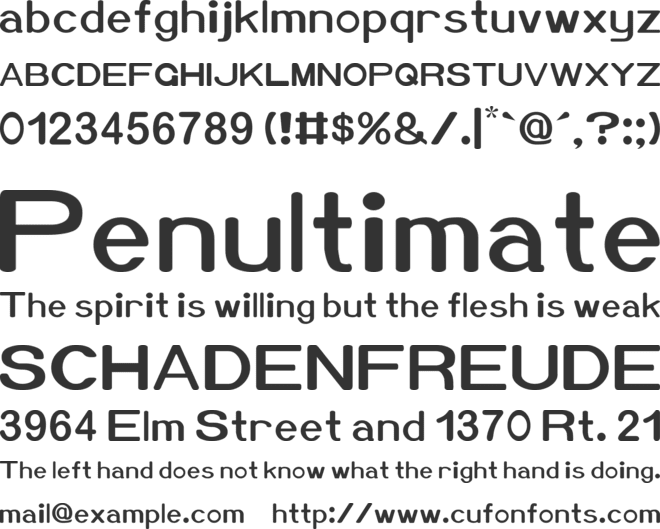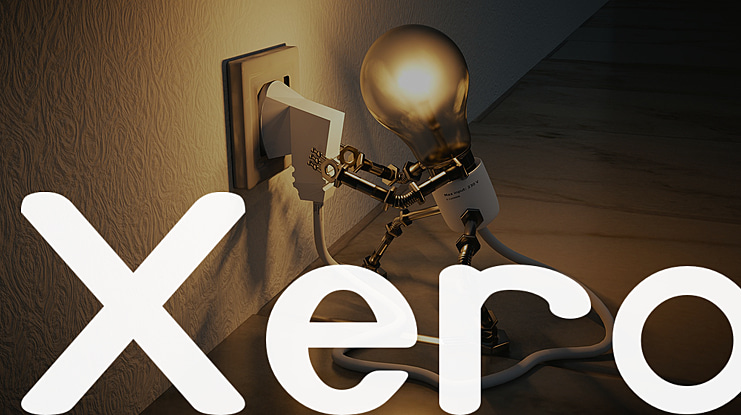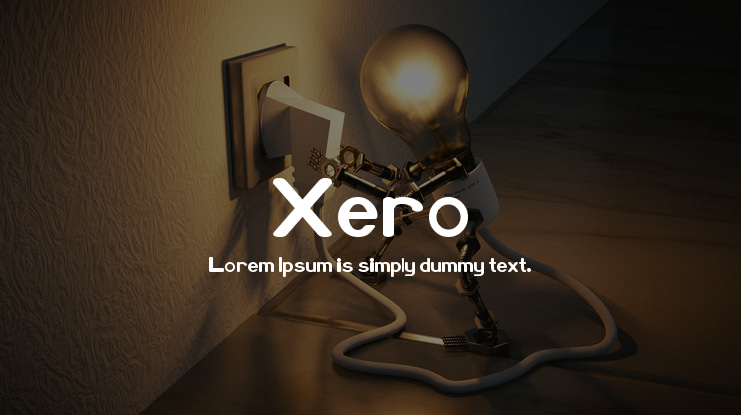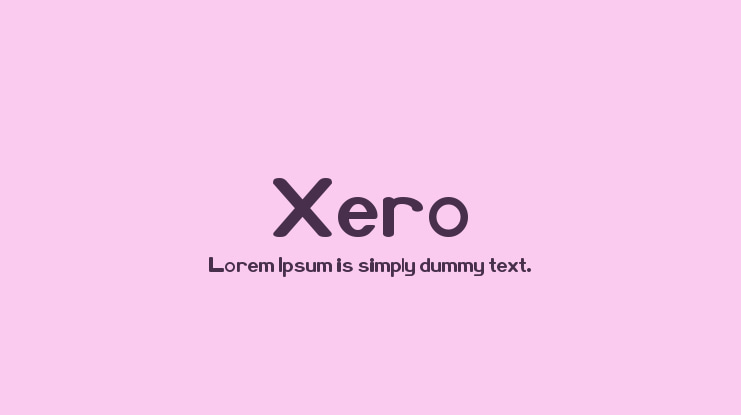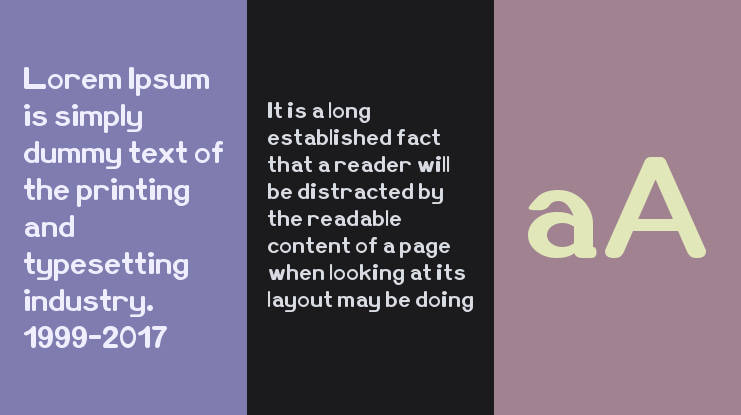
Xero is an intentionally loose creation of a humanist font. Played rougher than its counterparts Helvetica and Arial, Xero works well for those who want to go that route but don't want the sharply defined lines of others in the humanist family.